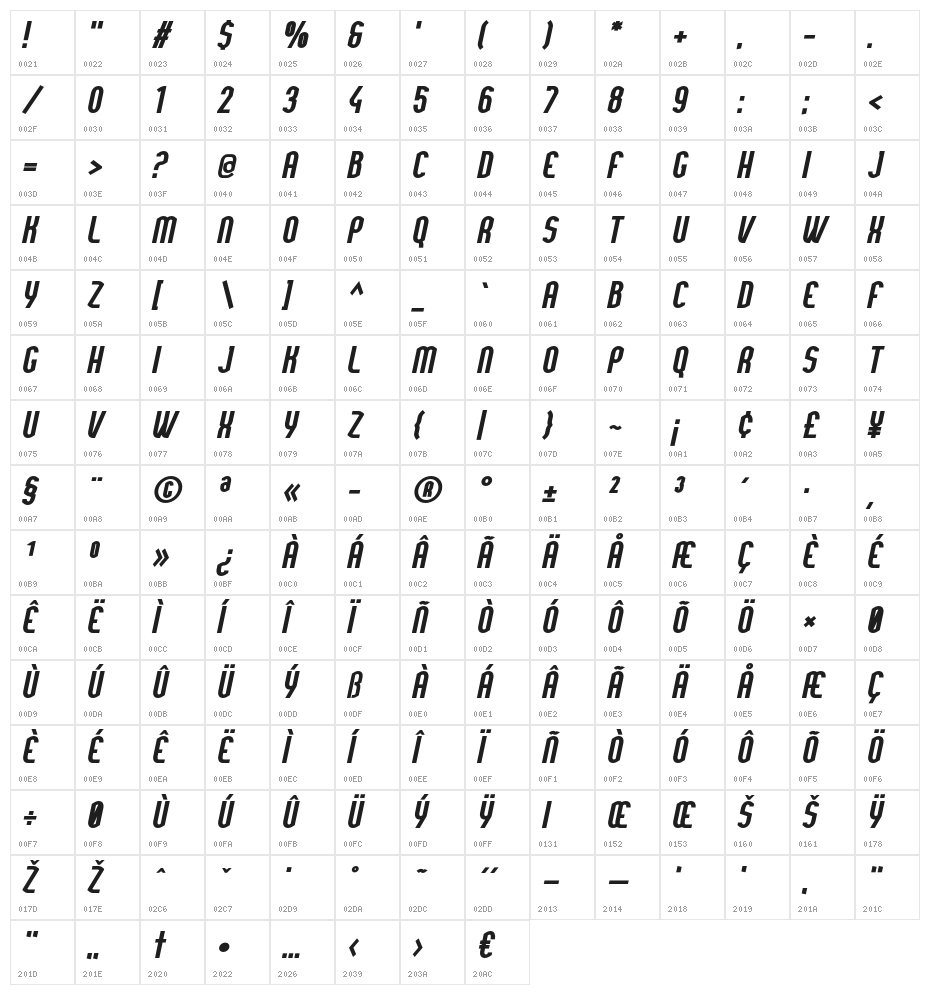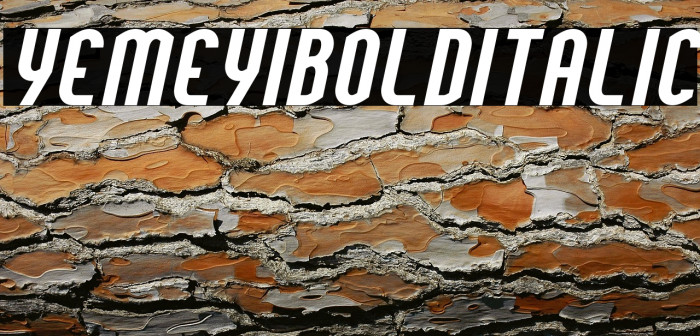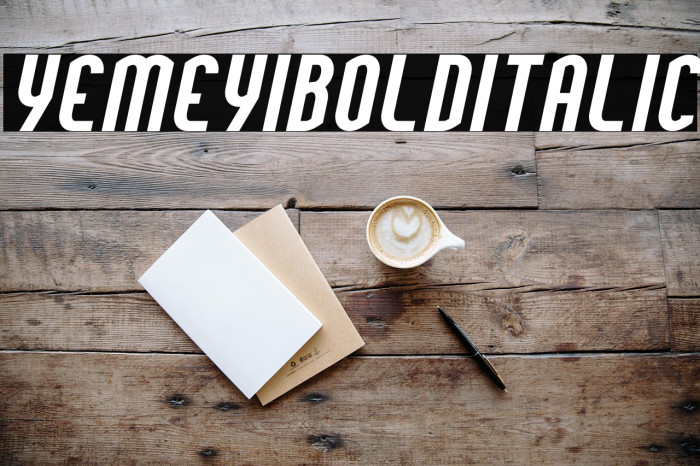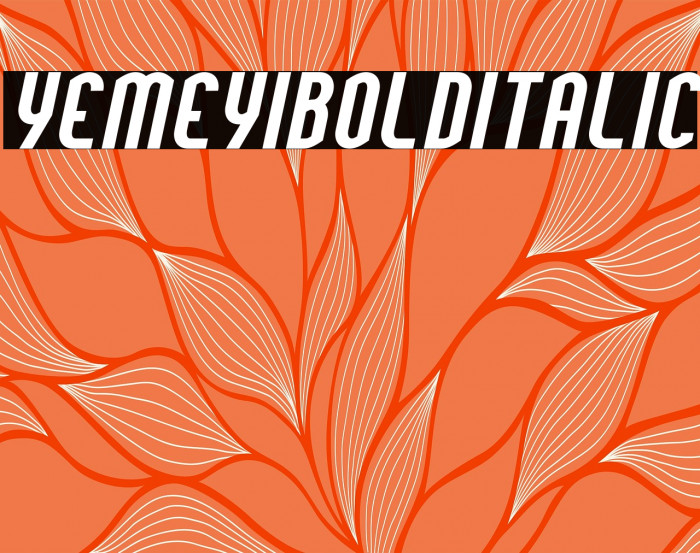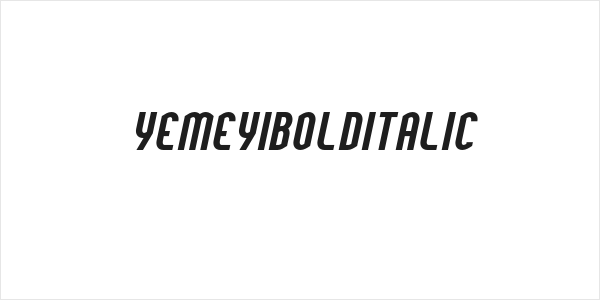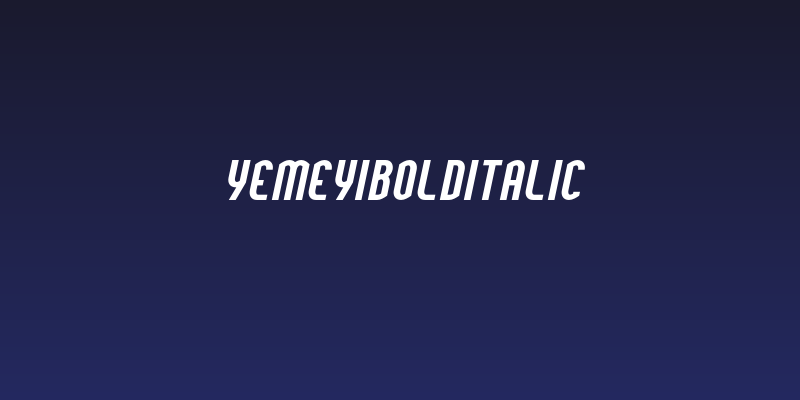
YemeyiBoldItalic Font
YemeyiBoldItalic Description
This font features a bold and italicized style, characterized by its strong, slanted letterforms that convey a sense of movement and dynamism. The uppercase and lowercase letters maintain a consistent weight, providing a uniform appearance across the alphabet. The numbers and special characters are designed to complement the letters, ensuring cohesive visual harmony. The font's strokes are thick and consistent, offering a high contrast that enhances readability. Its modern and sleek design makes it suitable for a variety of applications, from digital to print media.
Use CaseHeadlines, Logos, Advertising
Proposed ProjectsIdeal for branding, advertising, headlines, and digital media where a modern and dynamic look is desired.